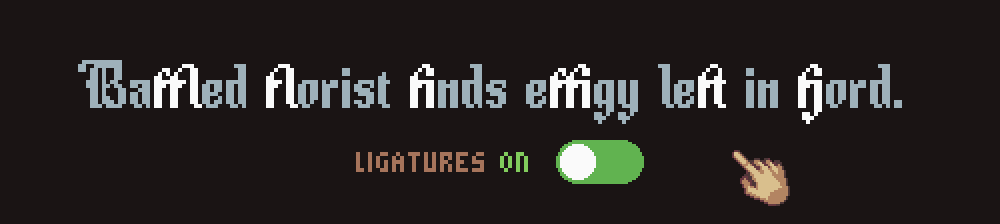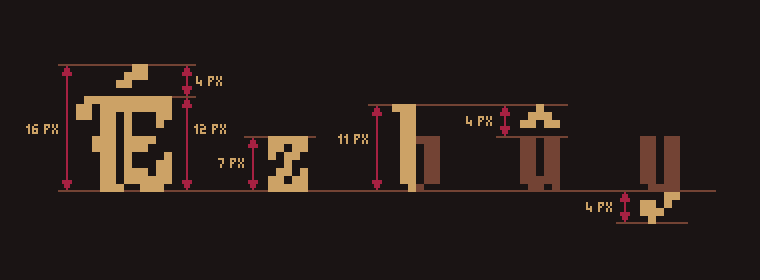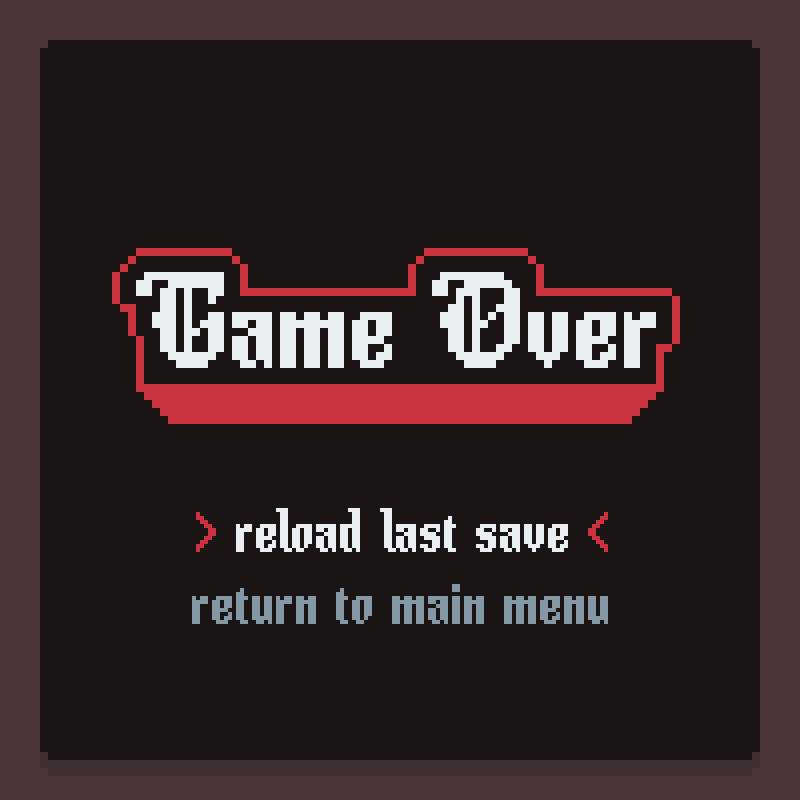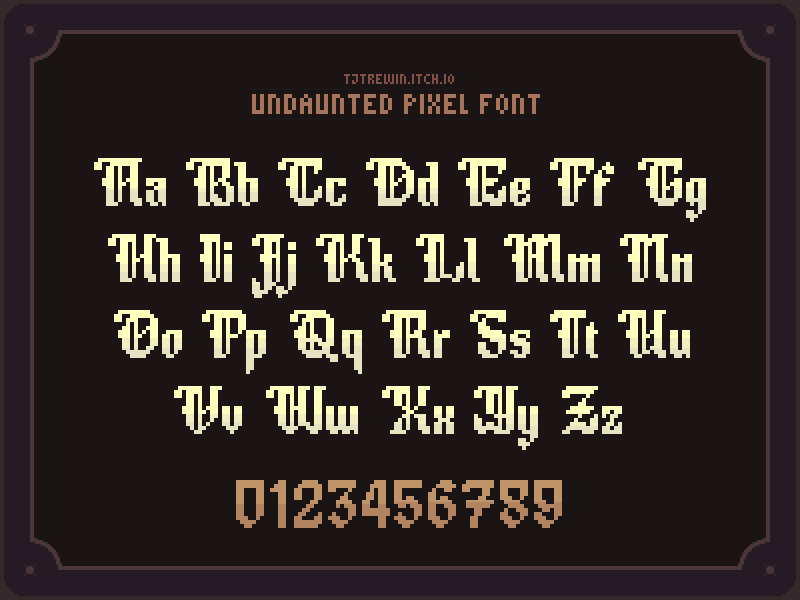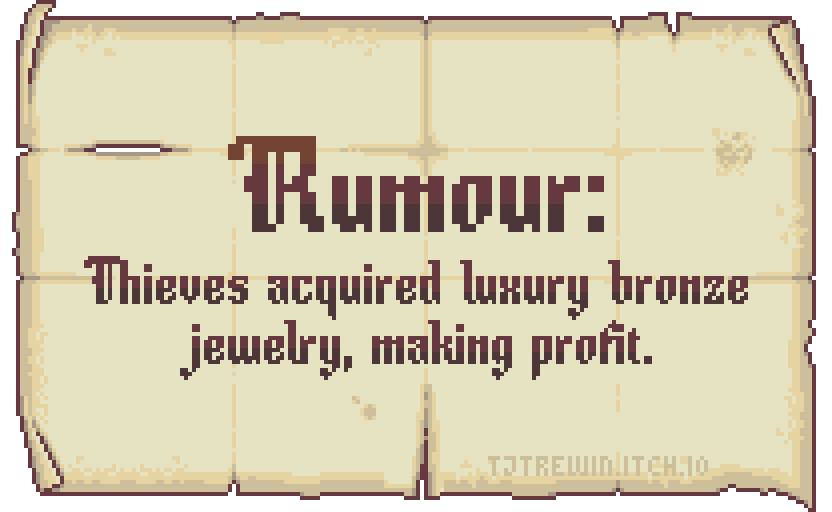
Undaunted - Fantasy Pixel Font
Undaunted Pixel is a 16px blackletter pixel art font ideal for fantasy, historical, and horror genres!
This is an alternative version of my original font, so if you prefer a non-pixel version you can find it here.
📜 Features:
- Multi-lingual support
- Kerning - letter spacing is already balanced for you
- Ligatures - enable this setting in your tool to join lowercase f characters together (ff, ffi, ffl, fl, fj, ft)